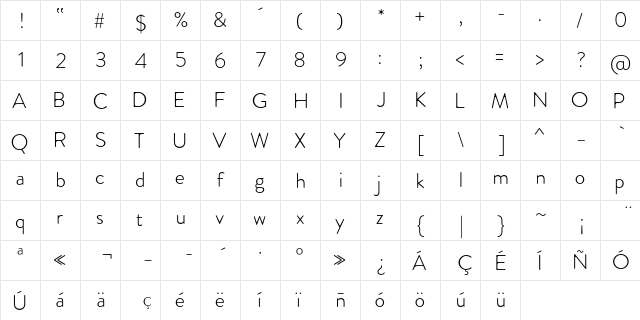
Febrero Light
Design Context for Febrero Typeface
Febrero is a composed and adaptable typeface that performs quietly and consistently across a wide range of design contexts. The delicate stroke weight brings airiness and refinement to layouts.
Pro Tip: Use Febrero in both headline and body roles to test its range before committing to a single application.